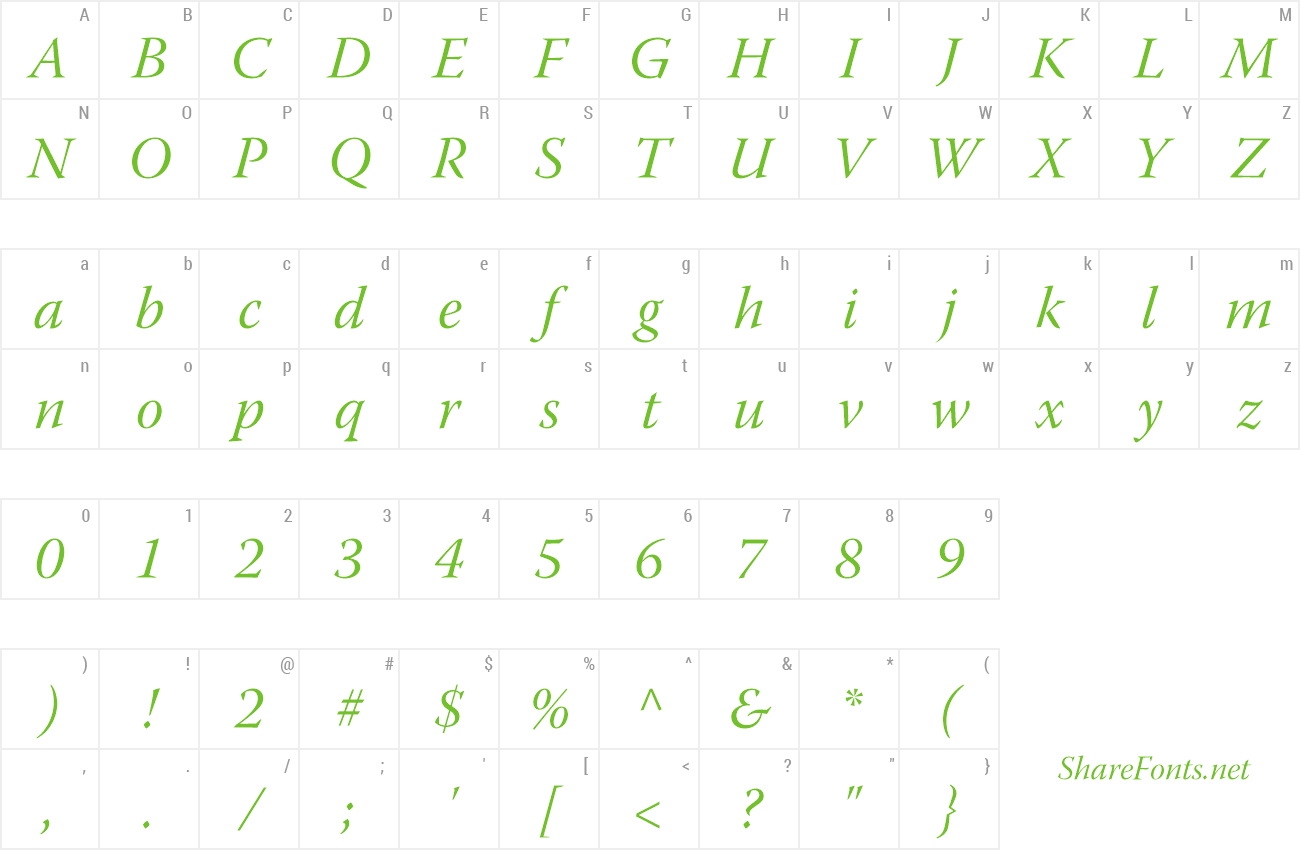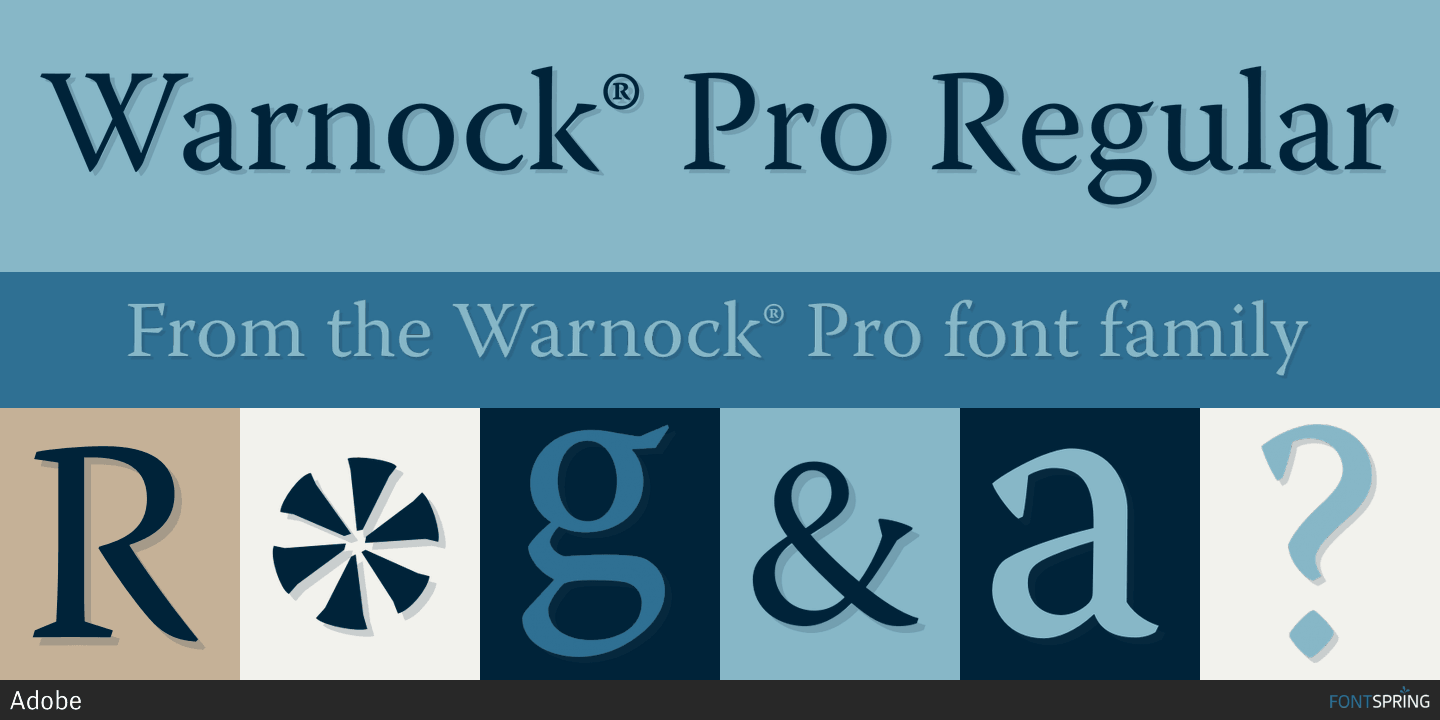
Warnock Pro Font
Warnock Pro Font - Download fonts from the warnock pro family. The warnock pro font family is available at azfonts. The warnock pro font was designed by robert slimbach. Orders your fonts web projects saved carts favorites. Web warnock pro font family. Web all fonts / adobe / warnock pro warnock pro. Designed by robert slimbach, warnock pro is a new adobe originals type composition family named after john. Web warnock pro is the perfect font for all your fun designs.
Designed by robert slimbach, warnock pro is a new adobe originals type composition family named after john. The warnock pro font was designed by robert slimbach. Download fonts from the warnock pro family. Web warnock pro is the perfect font for all your fun designs. Web warnock pro font family. Orders your fonts web projects saved carts favorites. Web all fonts / adobe / warnock pro warnock pro. The warnock pro font family is available at azfonts.
Designed by robert slimbach, warnock pro is a new adobe originals type composition family named after john. Orders your fonts web projects saved carts favorites. Web warnock pro font family. Web warnock pro is the perfect font for all your fun designs. The warnock pro font family is available at azfonts. Download fonts from the warnock pro family. The warnock pro font was designed by robert slimbach. Web all fonts / adobe / warnock pro warnock pro.
Warnock® Pro Font Fontspring
Web warnock pro font family. Download fonts from the warnock pro family. Web warnock pro is the perfect font for all your fun designs. The warnock pro font family is available at azfonts. The warnock pro font was designed by robert slimbach.
Warnock® Pro Font Fontspring
The warnock pro font family is available at azfonts. Designed by robert slimbach, warnock pro is a new adobe originals type composition family named after john. Web all fonts / adobe / warnock pro warnock pro. The warnock pro font was designed by robert slimbach. Web warnock pro is the perfect font for all your fun designs.
Designed by robert slimbach, warnock pro is a new adobe originals type composition family named after john. The warnock pro font family is available at azfonts. Web warnock pro font family. The warnock pro font was designed by robert slimbach. Download fonts from the warnock pro family.
Warnock® Pro Font Fontspring
Web warnock pro font family. Designed by robert slimbach, warnock pro is a new adobe originals type composition family named after john. Web warnock pro is the perfect font for all your fun designs. Download fonts from the warnock pro family. The warnock pro font was designed by robert slimbach.
Warnock® Pro Font Fontspring
Web warnock pro is the perfect font for all your fun designs. Orders your fonts web projects saved carts favorites. Download fonts from the warnock pro family. Designed by robert slimbach, warnock pro is a new adobe originals type composition family named after john. Web warnock pro font family.
Warnock® Pro Font Fontspring
Orders your fonts web projects saved carts favorites. Designed by robert slimbach, warnock pro is a new adobe originals type composition family named after john. The warnock pro font was designed by robert slimbach. Download fonts from the warnock pro family. Web warnock pro is the perfect font for all your fun designs.
Orders your fonts web projects saved carts favorites. Web all fonts / adobe / warnock pro warnock pro. Designed by robert slimbach, warnock pro is a new adobe originals type composition family named after john. The warnock pro font family is available at azfonts. The warnock pro font was designed by robert slimbach.
Warnock® Pro Font Fontspring
The warnock pro font family is available at azfonts. Orders your fonts web projects saved carts favorites. Web warnock pro is the perfect font for all your fun designs. The warnock pro font was designed by robert slimbach. Web warnock pro font family.
Warnock® Pro Font Fontspring
Web warnock pro is the perfect font for all your fun designs. Web all fonts / adobe / warnock pro warnock pro. Download fonts from the warnock pro family. Orders your fonts web projects saved carts favorites. Designed by robert slimbach, warnock pro is a new adobe originals type composition family named after john.
Warnock® Pro Font Fontspring
The warnock pro font family is available at azfonts. Web all fonts / adobe / warnock pro warnock pro. Web warnock pro font family. Web warnock pro is the perfect font for all your fun designs. Designed by robert slimbach, warnock pro is a new adobe originals type composition family named after john.
Web warnock pro is the perfect font for all your fun designs. Designed by robert slimbach, warnock pro is a new adobe originals type composition family named after john. Download fonts from the warnock pro family. Web all fonts / adobe / warnock pro warnock pro.
Web Warnock Pro Font Family.
The warnock pro font family is available at azfonts. The warnock pro font was designed by robert slimbach.